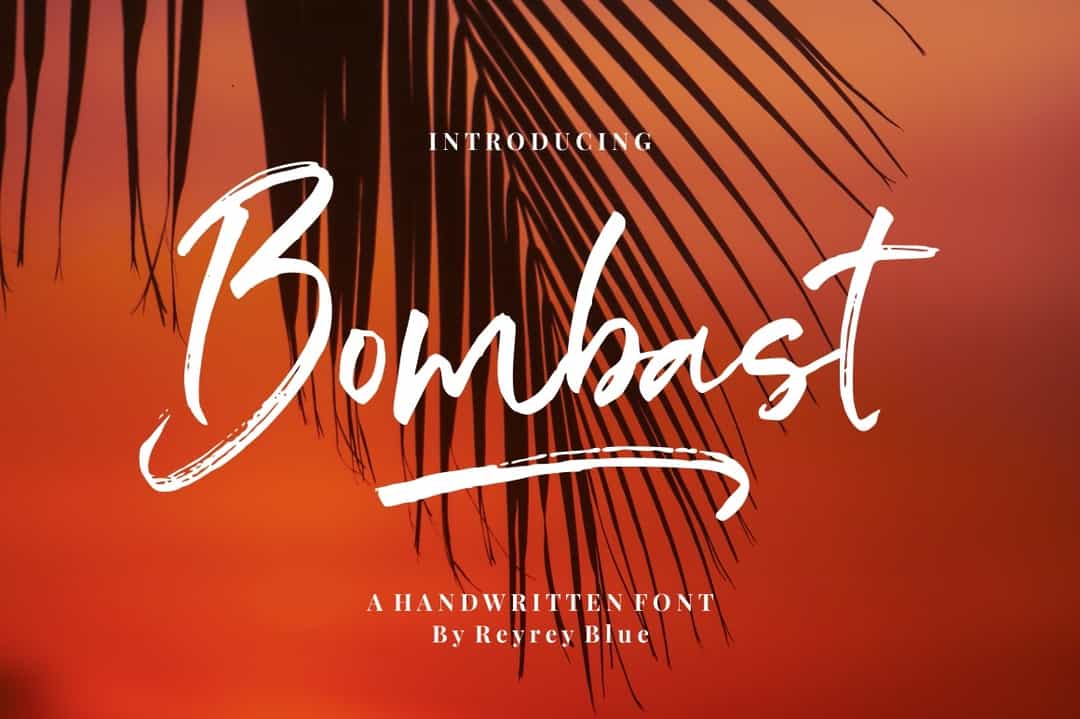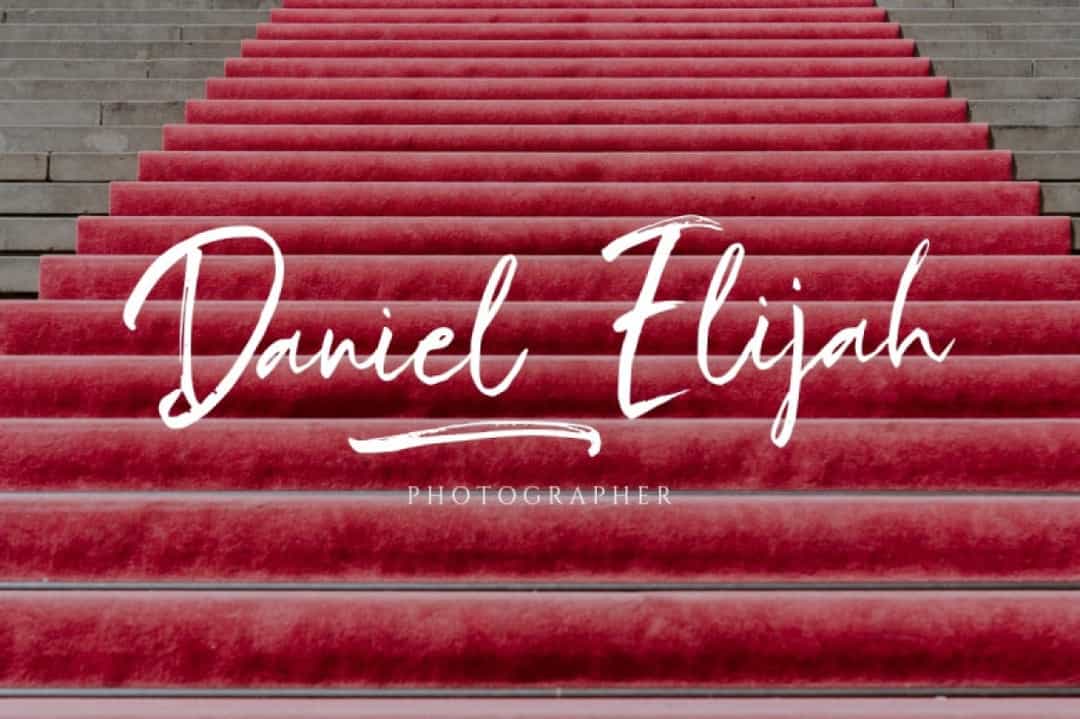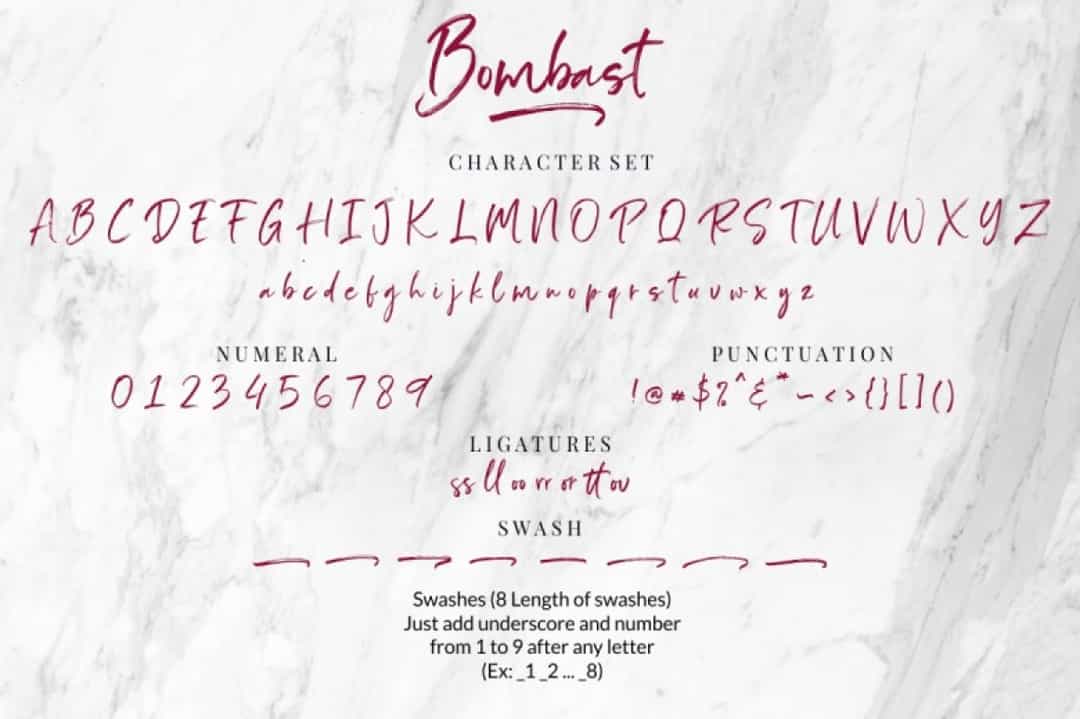
Discover Bombast Font, part of the Brush collection—a versatile and unique font perfect for adding a personal touch to your projects. Download it for free and enjoy crafting designs with style, from invitations to social media posts. This font is available exclusively for personal use, giving you the freedom to create without limits. Unlock your creativity with Bombast Font today!
Bombast Brush Script has an elegant and natural appearance, perfect for titles, invitations, clothing designs, Tittlebooks, stationery branding quotes graphics t-shirt packaging posters etc. PUA encoded so you have easy access to all strokes glyphs and even swashes!